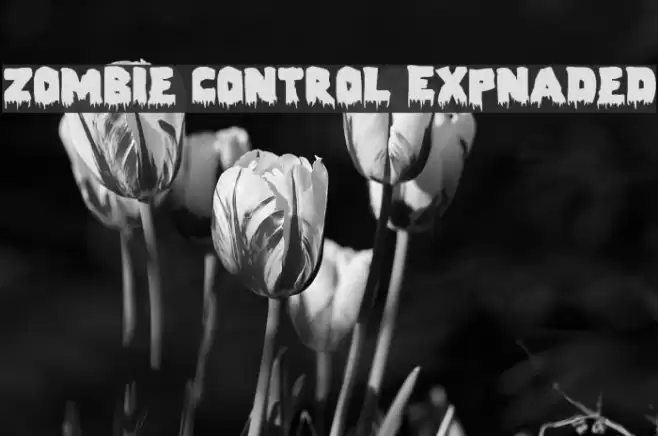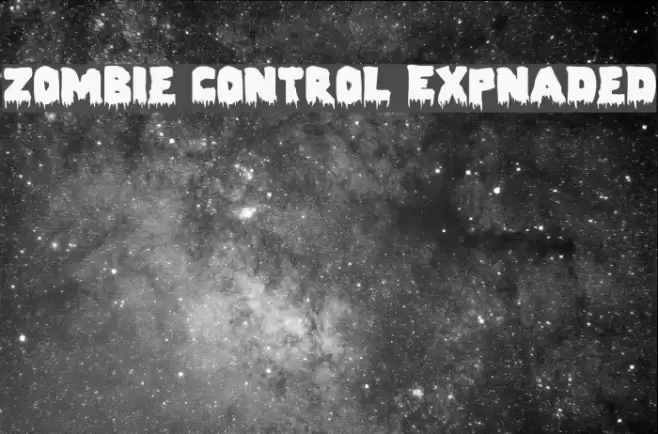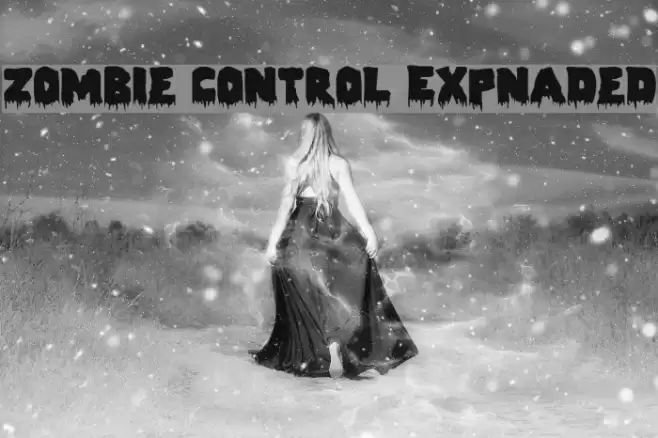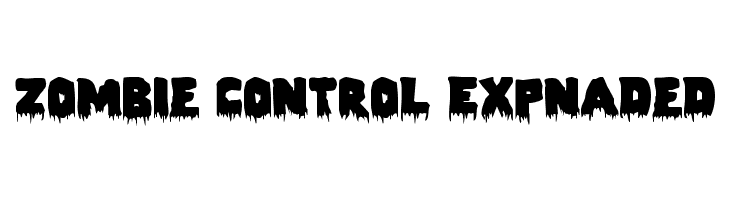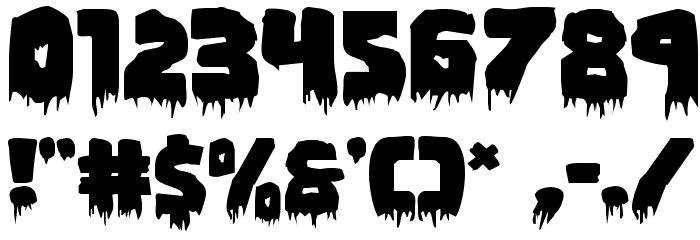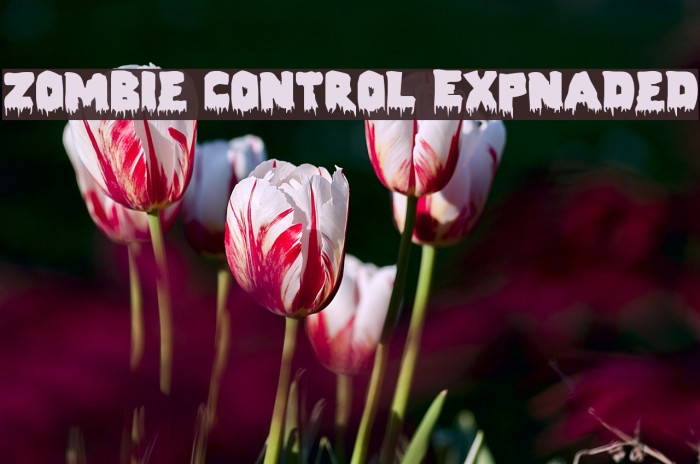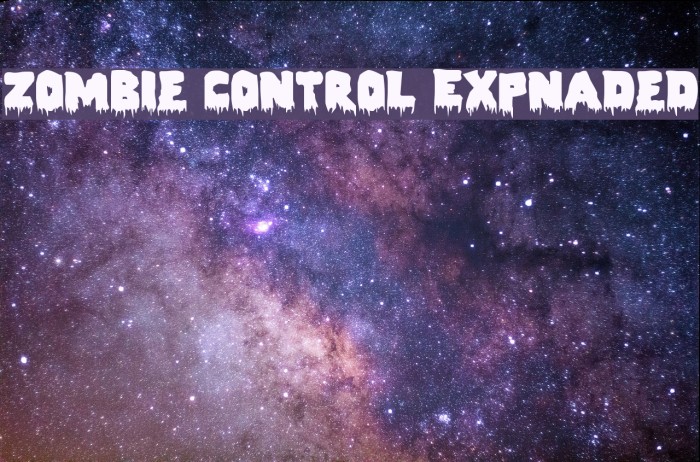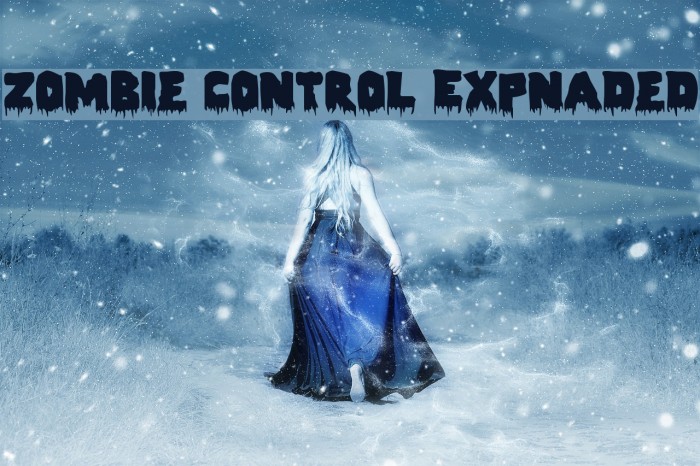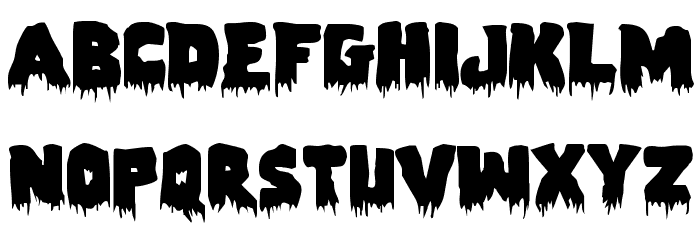
Zombie Control Expnaded Font
Zombie Control Expnaded Description
This font features a bold, dripping effect that evokes a sense of horror and the macabre. The characters are designed with a jagged, uneven baseline, giving the impression of melting or decaying material. Each letter and number has a unique, organic shape that enhances the eerie aesthetic. The font is highly stylized, making it ideal for themes related to Halloween, horror movies, or any project requiring a spooky, unsettling vibe. The uppercase and lowercase letters maintain a consistent style, with the special characters and numbers also reflecting the same dripping motif.
A bold, dripping font perfect for horror-themed projects from Uncategorized fonts.
- Proposed Projects: Ideal for Halloween invitations, horror movie posters, haunted house flyers, and spooky-themed merchandise.